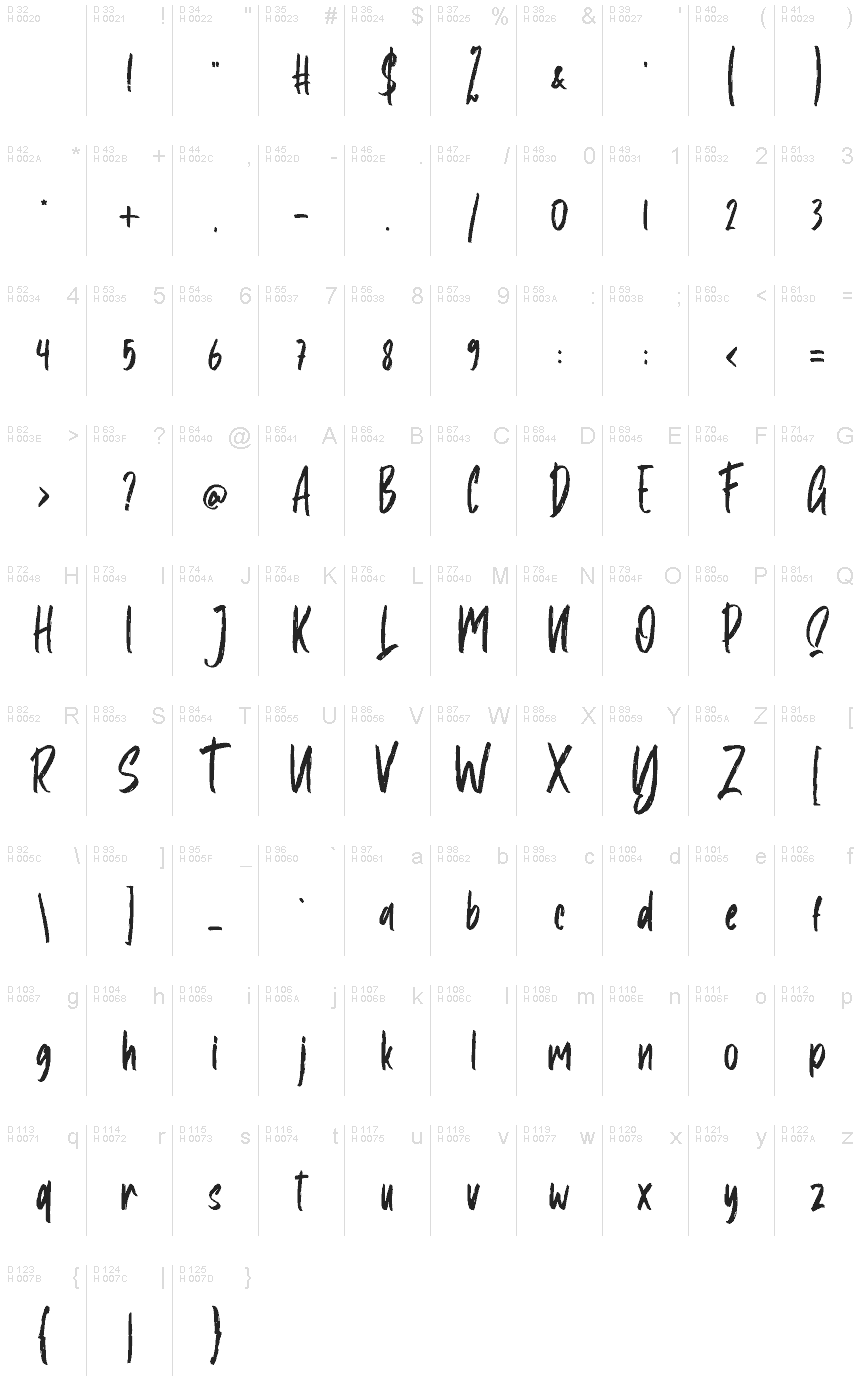
Yesterdays
Remember those days when you looked out of the window and sighed in longing for a life you believed only existed in novels? This new brush font brings those days and that feeling right back. Yesterdays is a condensed font with thick strokes, suitable for posters, labels, branding projects, invitations and postcards. It’s a vintage-inspired design in both its style and aesthetic with a rough appearance that evokes a sense of nostalgia.